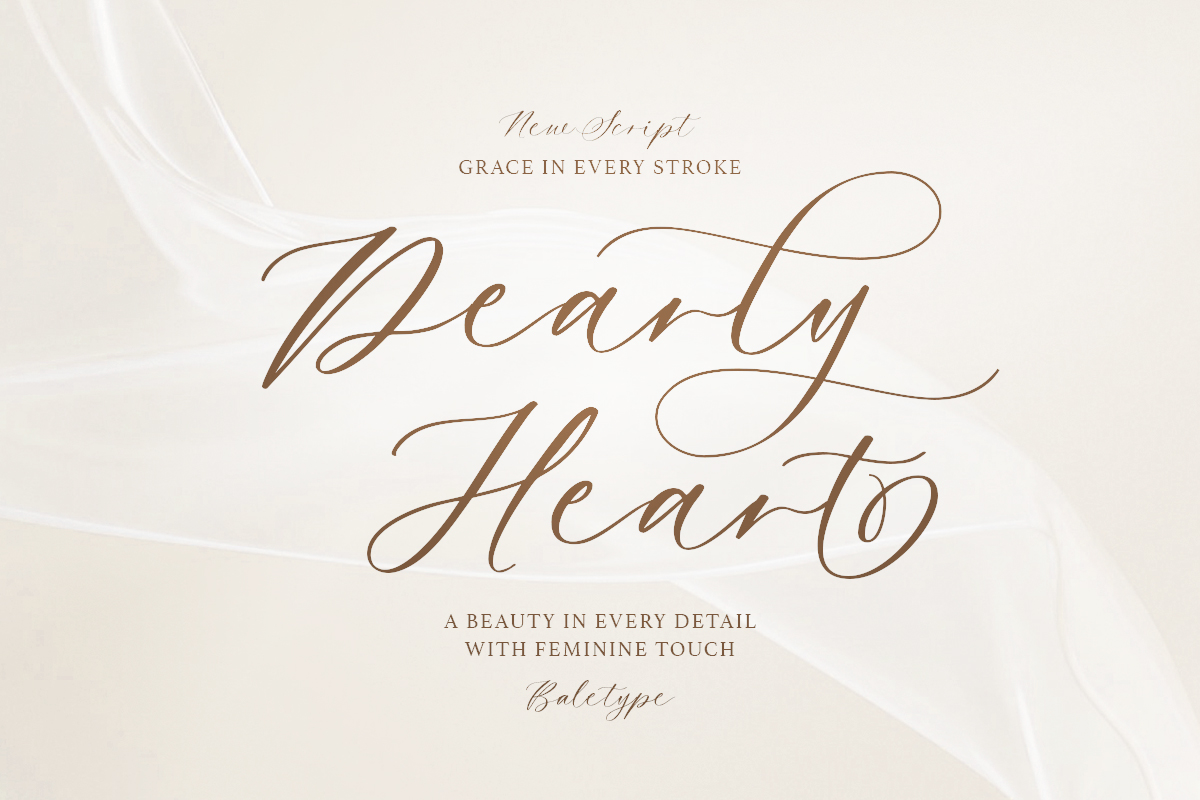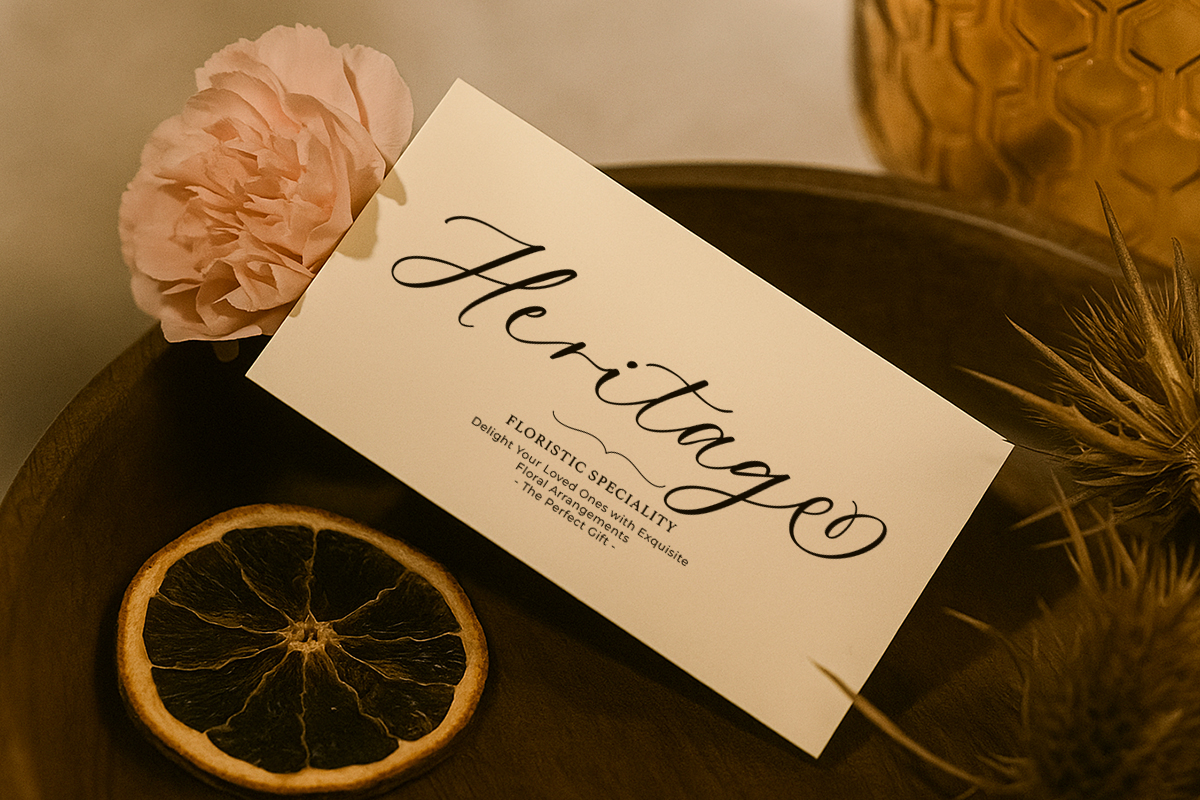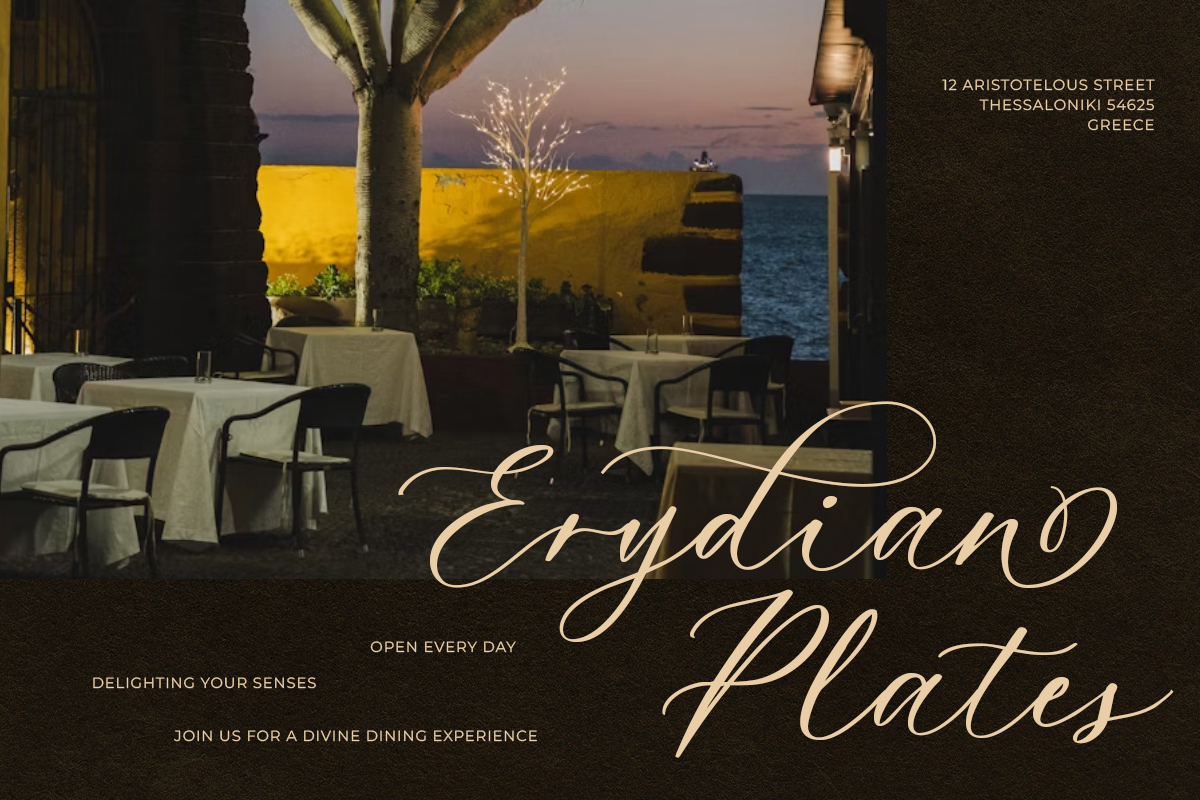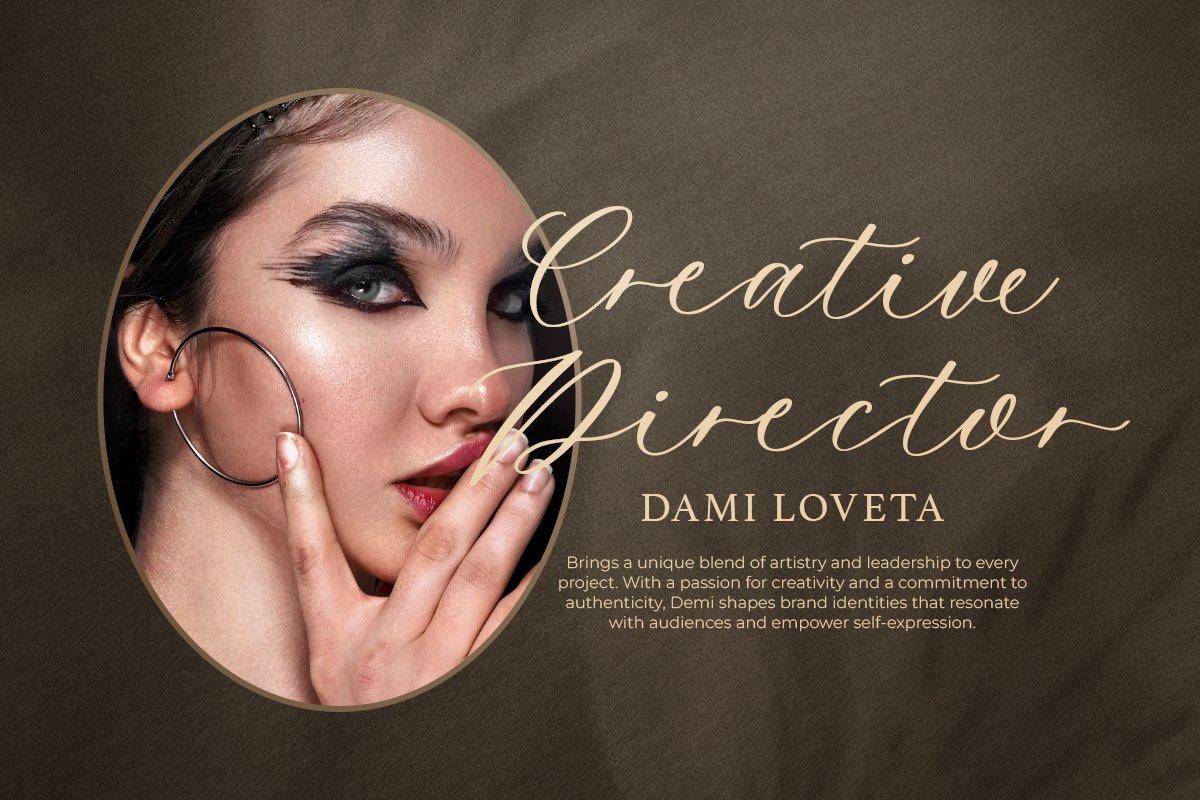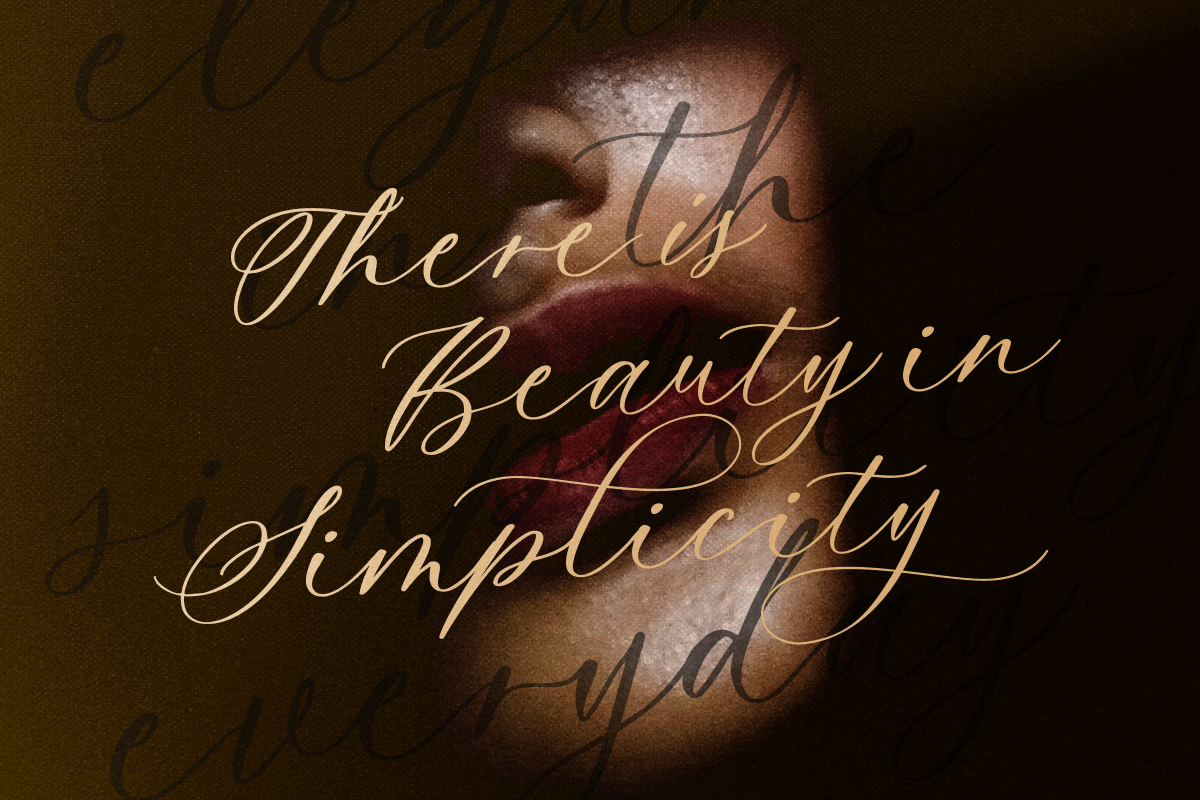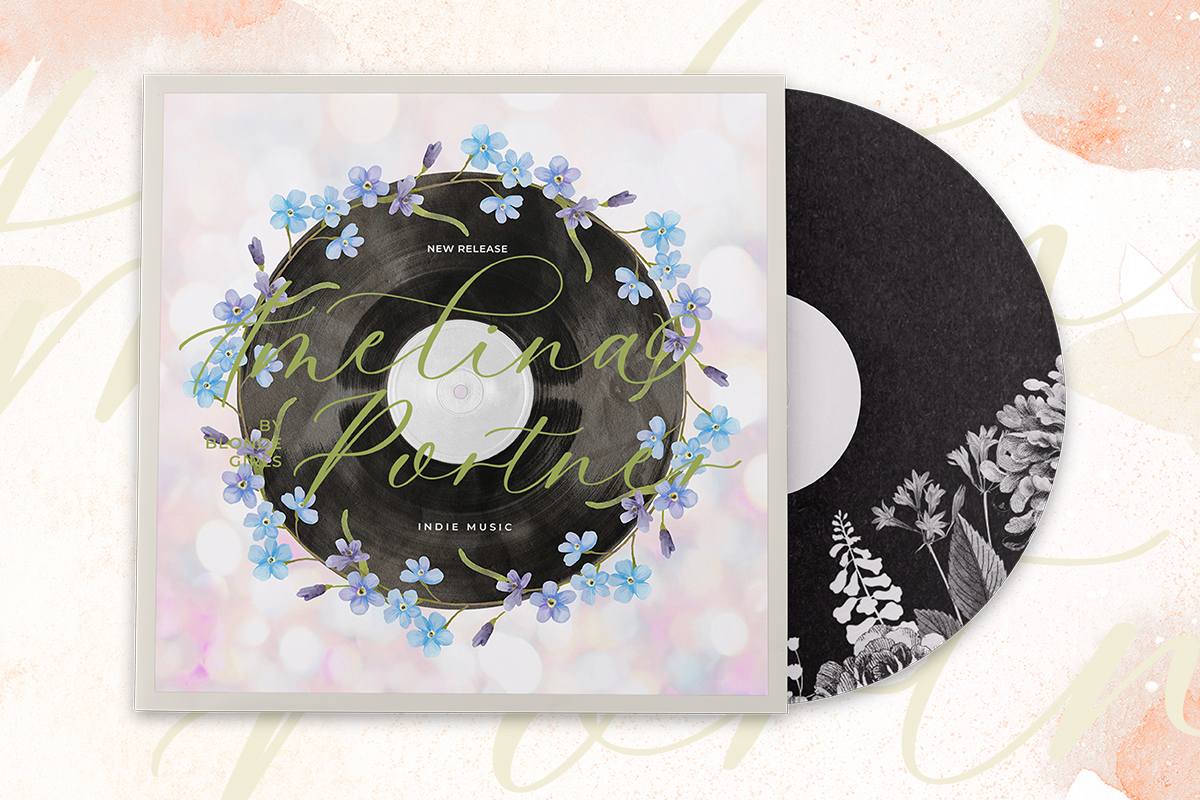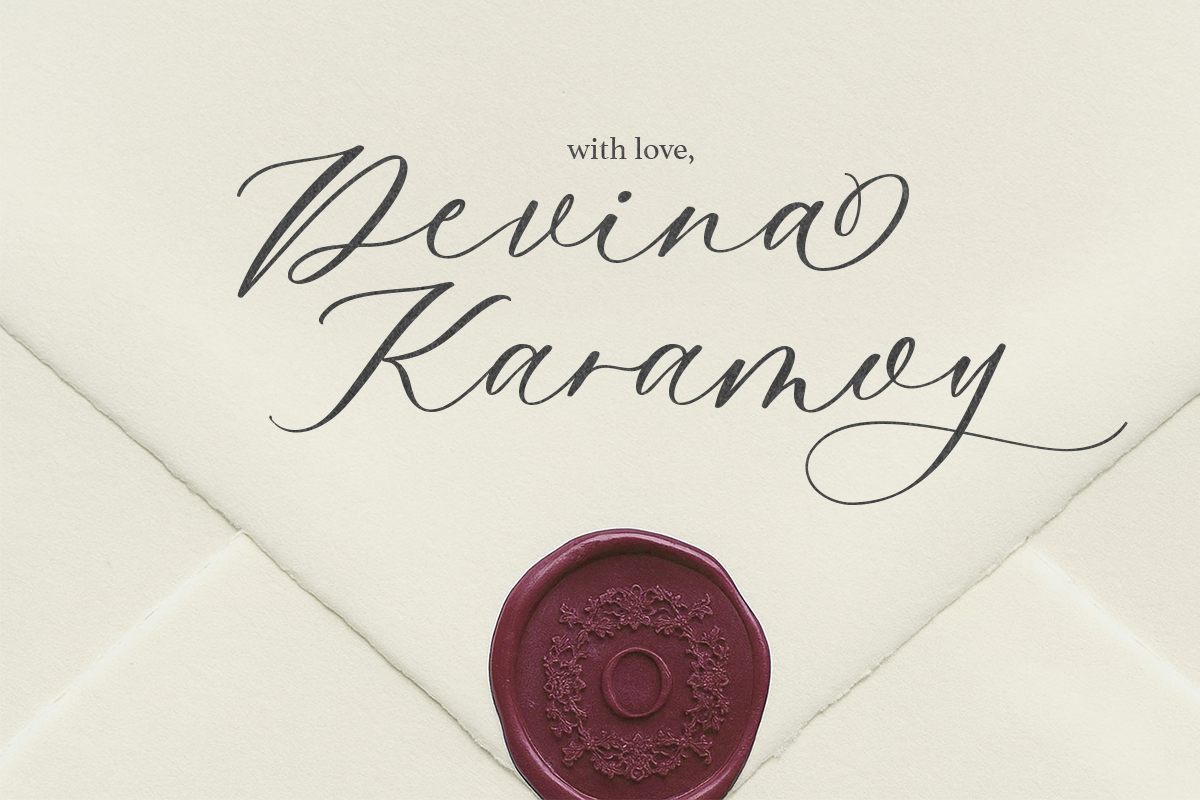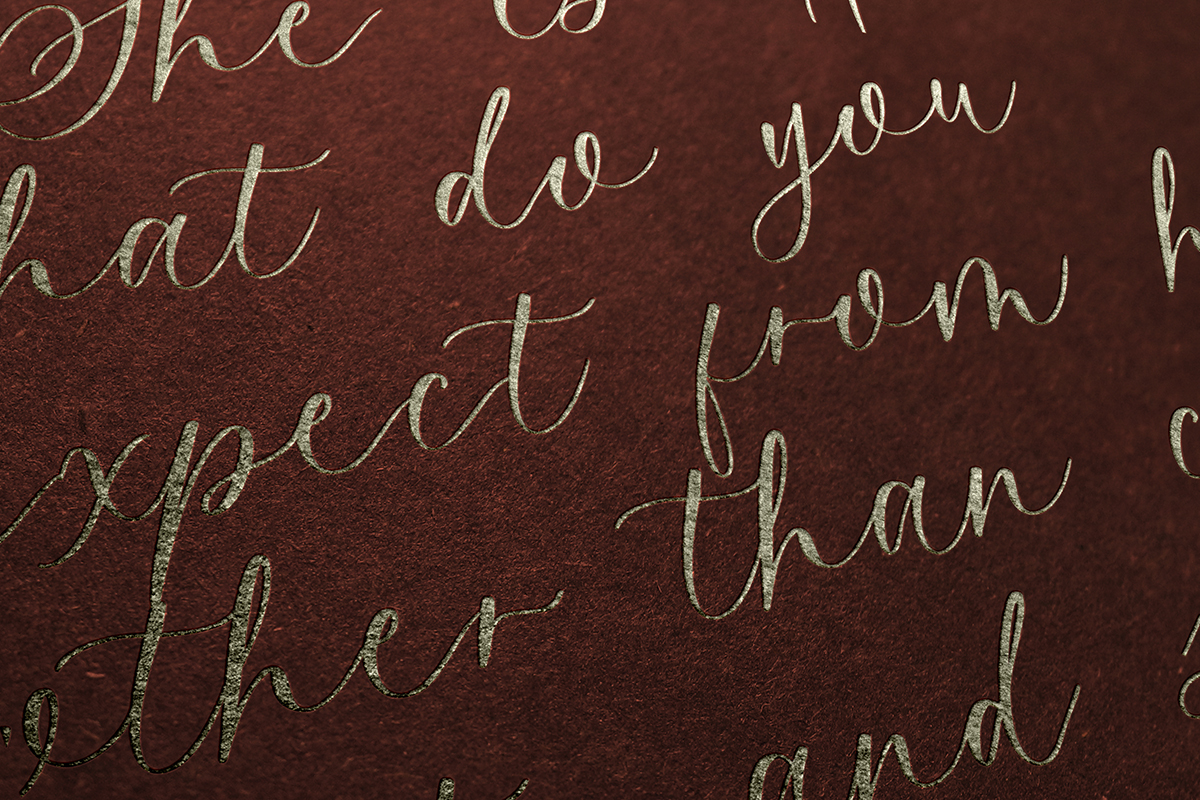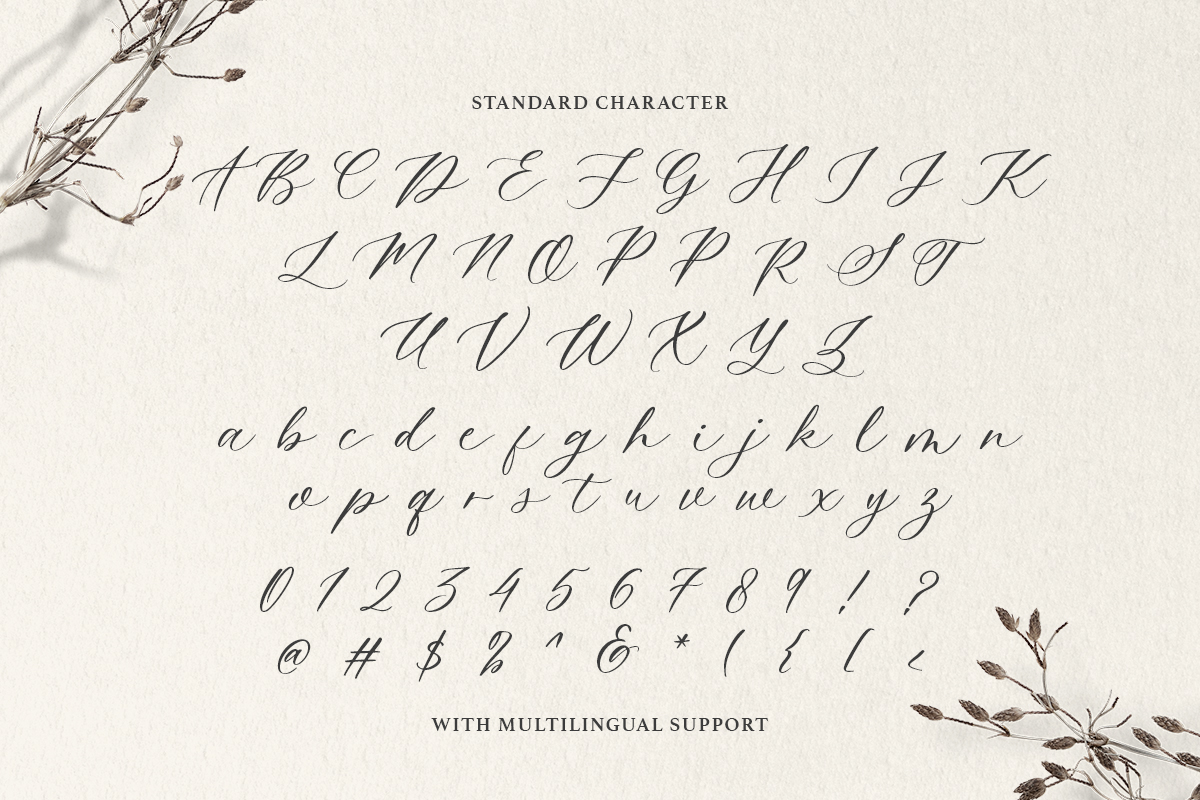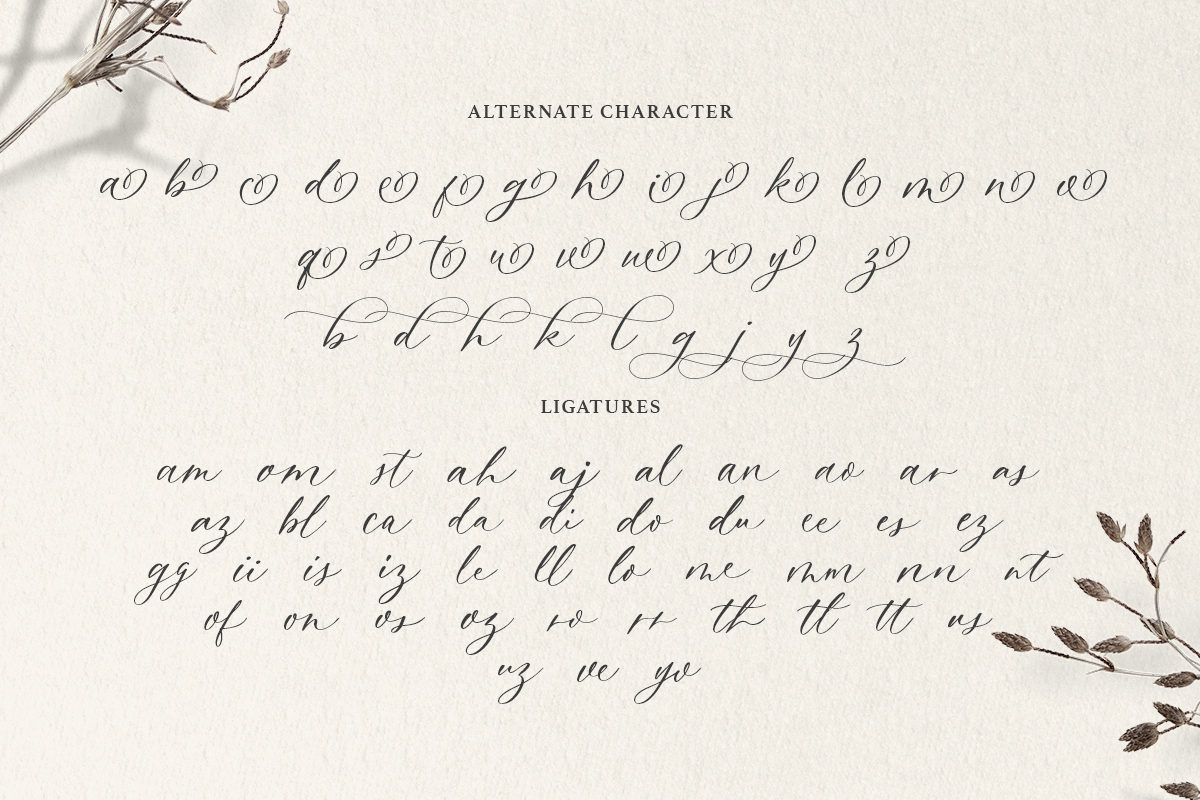
Dearly Heart is a handwritten calligraphy script with elegant and romantic touch. You can use this font for any purposes such signature logo, branding, or quotes. This script also good for wedding invitations. Dearly Heart also contains ligatures and alternates that will make your project looks stunning. This font support multi language.
Dearly Heart – Feminine Script
Dearly Heart is a handwritten calligraphy script with elegant and romantic touch.